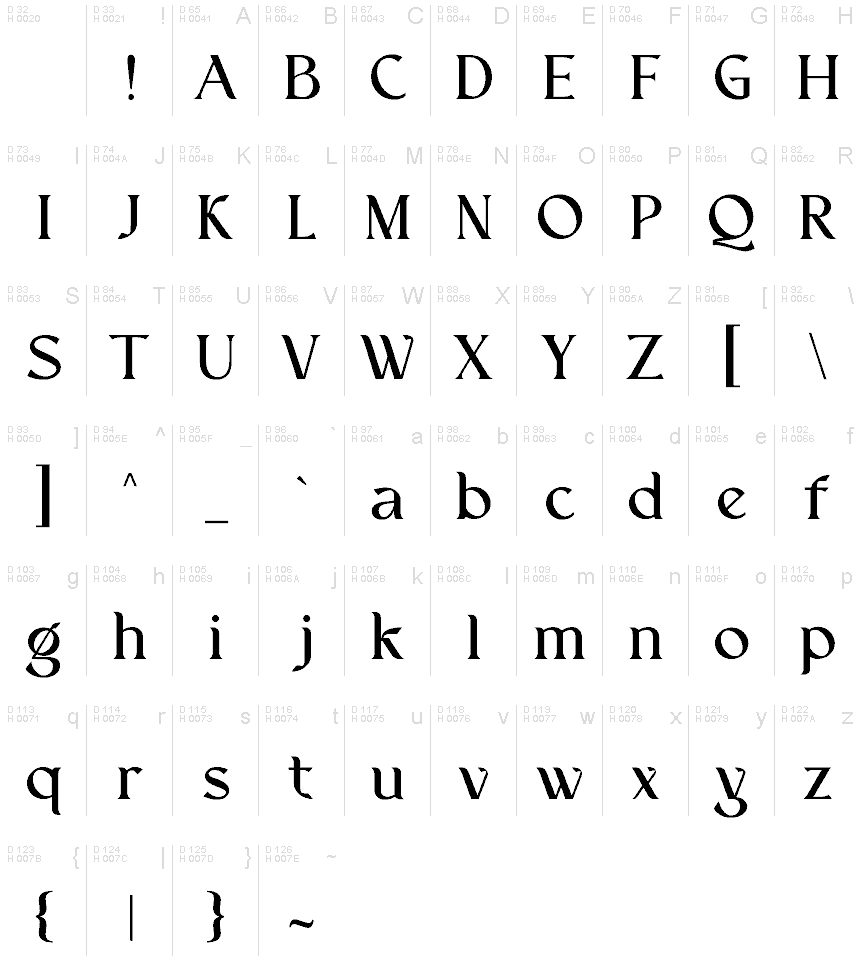
WolfsburgCastle
Wolfsburg Castle font by Unitype is a refined serif choice with a traditional appeal. Its elegant design boasts slightly ornate details, giving it a sophisticated and timeless look with classical influences. The font captures an essence of history and artistry in its composed presentation.